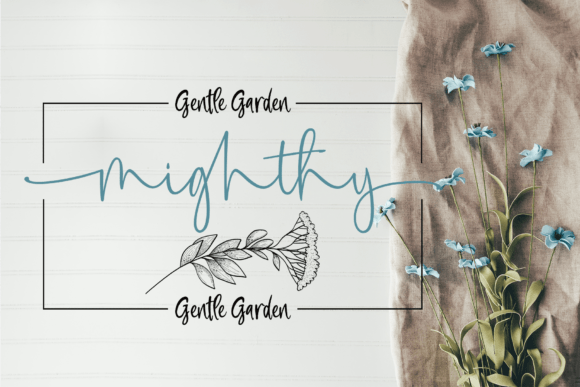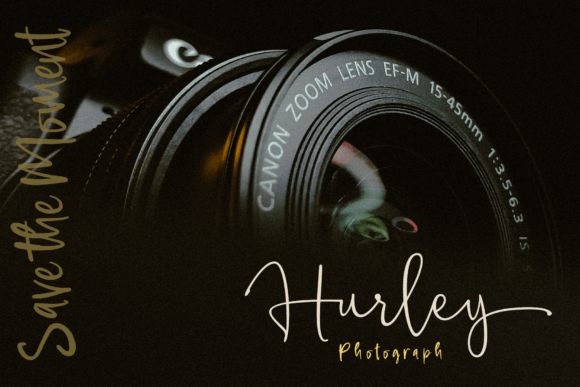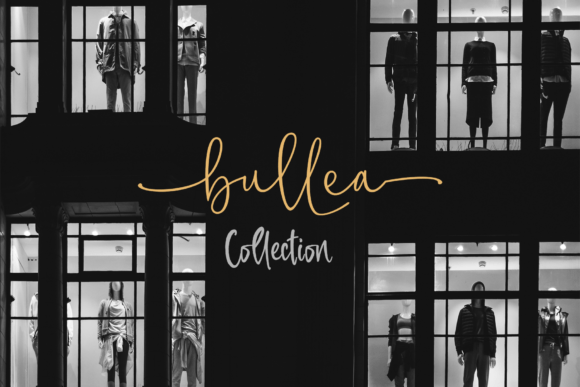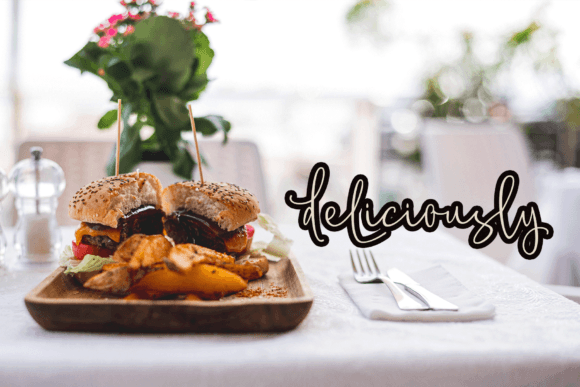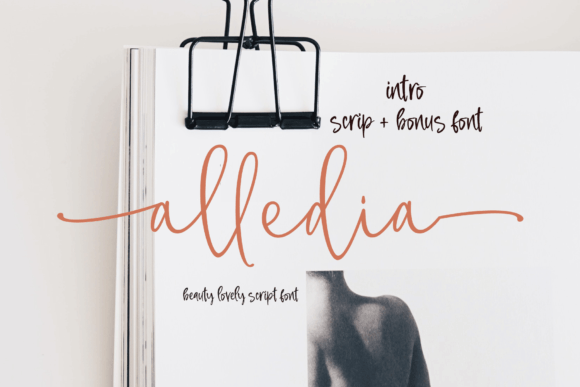
The Alledia Font: A Modern Calligraphy Dream
I still remember the design project that led me to discover the Alledia font. I was working on a wedding invitation for a close friend, and I was struggling to find the perfect calligraphy font that would match the elegant and modern vibe of the wedding. That’s when I stumbled upon Alledia, and it instantly became my go-to choice. In this article, I’ll share my experience with Alledia, its features, and how to make the most of it in your designs.
An Honest Review of Alledia
What I Love About Alledia ✨
- 💫 Modern calligraphy style that’s perfect for headings, logos, and invitations
- 🎨 Versatile and can be used for various projects, from wedding invites to posters and signage
- 💖 Beautifully crafted, with a touch of elegance and sophistication
While Alledia is an amazing font, there are a few things to keep in mind:
- 🤔 Some users have reported issues with kerning, but this can be easily adjusted in most design software
- ⚠️ Not suitable for body text, as it’s best used for headings and titles
One of the best things about Alledia is its OpenType features and glyphs. These allow you to customize your text and add more personality to your design. Some of the features you can explore include:
- Stylistic alternates: These allow you to switch between different versions of a letter or symbol
- Glyphs: These are special characters that can be used to add more interest to your text
The Story Behind Alledia
Alledia was designed with the goal of creating a modern calligraphy font that’s both elegant and versatile. The designer aimed to create a font that would be perfect for a variety of projects, from wedding invitations to posters and signage. With its beautiful lines and highly legible design, Alledia has become a popular choice among designers and crafters.
Q: What is the best way to use Alledia in my designs?
A: Alledia is best used for headings, titles, and short text elements. It’s perfect for projects that require a touch of elegance and sophistication.
Q: Is Alledia suitable for body text?
A: No, Alledia is best used for headings and titles. It’s not suitable for body text, as it’s designed to be used at larger sizes.